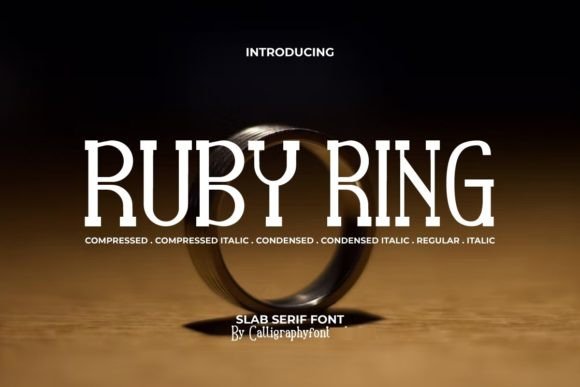
Ruby Ring Font: A Modern Slab Serif for Handmade Brands
If you’ve ever spent hours searching for a display font that feels both bold and approachable—something that commands attention on a candle label, adds warmth to a wedding welcome sign, or gives your printable planner pages a polished, intentional look—you’ll understand why Ruby Ring Font has become my go-to slab serif for physical and digital craft products.
Ruby Ring isn’t just another decorative typeface. It’s a thoughtfully crafted slab serif display font with six distinct styles: Regular, Italic, Compressed, Compressed Italic, Condensed, and Condensed Italic. That means real flexibility—not just visual flair. The serifs are clean and confident, the stroke contrast is subtle but effective, and the overall impression is modern, grounded, and quietly sophisticated. It doesn’t shout—but when it appears on your product, people pause. They read. They remember.
Where Ruby Ring Shines in Real Craft Projects
I use Ruby Ring across nearly every part of my small shop workflow—and here’s where it delivers the most value:
- Product labels & tags: Its sturdy letterforms hold up beautifully at small sizes (8–12 pt) on kraft paper stickers or woven boutique tags. I’ve used the Condensed style for narrow soap labels and the Regular for wider apothecary jars—both print crisply, even with thermal label printers.
- Invitations & stationery: For wedding suites, baby announcements, or birthday invites, Ruby Ring’s Italic adds gentle movement without sacrificing readability. Pair it with a soft script for names and keep body text in a neutral sans serif—it creates hierarchy that feels handmade, not overdesigned.
- SVG cut files & Cricut/Silhouette projects: The clean terminals and open counters mean fewer cutting errors—even on intricate vinyl decals for mugs or tote bags. I especially rely on the Compressed Italic for vertical signage like farmhouse-style wall art or seasonal market banners.
- Digital printables & templates: Whether it’s a monthly budget tracker, gratitude journal cover, or printable holiday card bundle, Ruby Ring gives digital downloads a premium, tactile feel. Customers consistently comment that my templates “look professionally designed”—and this font is half the reason why.
- Packaging & seasonal merch: Last holiday season, I used Ruby Ring Condensed on red-and-gold gift box stickers and matching tissue wrap designs. Its compact width maximized space without crowding, and the modern serif tone elevated simple packaging into something customers photograph and share.
Readability Meets Real-World Production
Let’s be practical: a beautiful font is useless if it fails at 10 pt on a 1" sticker or gets mangled by a cutting machine’s path simplification. Ruby Ring handles both with ease. The x-height is generous, lowercase letters like ‘a’, ‘e’, and ‘s’ remain clear and open, and uppercase characters have strong presence without harsh rigidity. I’ve tested it down to 6 pt on matte vinyl—still legible under natural light. For laser-cut wood signs or engraved acrylic tags, the Regular and Condensed weights render cleanly with minimal cleanup needed in design software.
One note: Ruby Ring is a display font, not a text face. It’s built for headlines, titles, short phrases, and branding—not long paragraphs. That’s intentional. Use it where you want impact: your shop name on a banner, the flavor name on a tea tin, the date on an invitation suite. Let it do the heavy lifting, then step back and let a simpler sans or serif carry supporting text.
Smart Pairings for Balanced Design
Ruby Ring’s strength lies in its versatility—not isolation. I pair it intentionally, depending on the project’s mood and function:
- With a delicate script font (like a flowing connected script) for names, quotes, or monograms—Ruby Ring anchors the composition while the script adds personality.
- With a clean geometric sans serif (think Montserrat or Poppins) for product descriptions, ingredient lists, or pricing—creating contrast that guides the eye naturally.
- With a low-contrast serif (like Lora or Merriweather) for printed booklets or multi-page wedding programs—where Ruby Ring sets the tone on covers and section headers, and the serif carries longer text with grace.
Ruby Ring comes in standard OTF and TTF formats—fully compatible with Canva, Adobe Creative Cloud, Silhouette Studio, Cricut Design Space, and Affinity apps. There are no ligatures, swashes, or stylistic alternates included—but that’s actually a benefit for crafters: what you see is what cuts and prints. No surprises. No extra steps to disable hidden glyphs.
It’s more than a font. It’s a tool that helps your handmade business look and feel like the thoughtful, intentional brand it truly is.